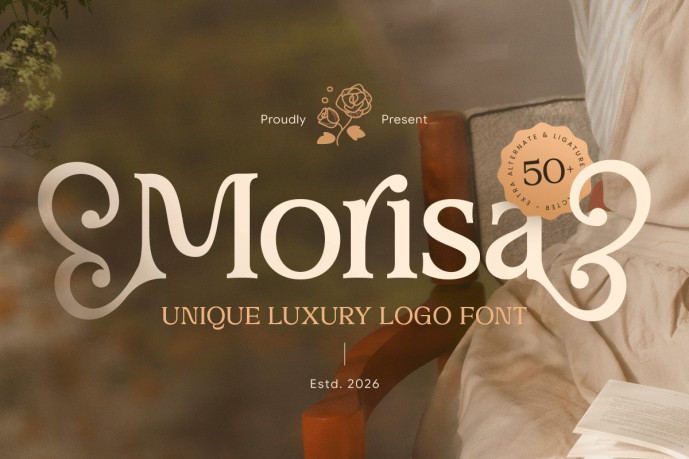
Morisa Font
Morisa Font – Unique Luxury Logo Font Morisa is a unique luxury logo font designed to bring elegance, exclusivity, and sophistication to modern branding projects. Featuring distinctive letterforms, refined details, and a premium aesthetic, Morisa is perfect for luxury logos, fashion branding, beauty products, boutique businesses, packaging, and high-end creative designs.
Combining contemporary elegance with artistic character, Morisa creates a memorable and prestigious visual identity. Its carefully crafted structure ensures excellent readability while maintaining a unique and luxurious appearance, making it ideal for cosmetics, jewelry brands, premium hospitality, editorial design, and upscale visual communication.